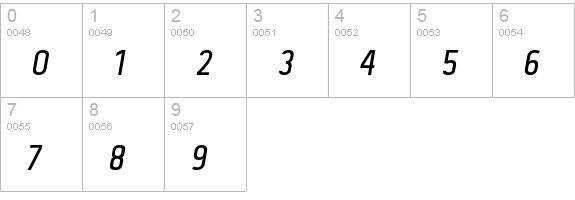
Tolyer Book no.3 Oblique Font Details
Tolyer Book no.3 Oblique is a comfortable, highly readable, italic variant in the Tolyer typeface family \xE2\x80\x94 well suited to long-form body text, articles, and editorial content.
Introducing Tolyer Book no.3 Oblique font, a versatile and elegant typeface that exudes sophistication and charm. This exquisite font is perfect for adding a touch of class to your projects, whether it be for print or digital design. With its unique slanted style and graceful curves, Tolyer Book no.3 Oblique font offers a modern twist on traditional typography, making it a standout choice for any creative endeavor. What's even better is that Tolyer Book no.3 Oblique font is available for free download at FontsMarket.com. Yes, you read that right - this stunning font can be yours at no cost, allowing you to elevate your designs without breaking the bank. So why wait? Add Tolyer Book no.3 Oblique font to your font collection today and watch your creations come to life with style and sophistication.